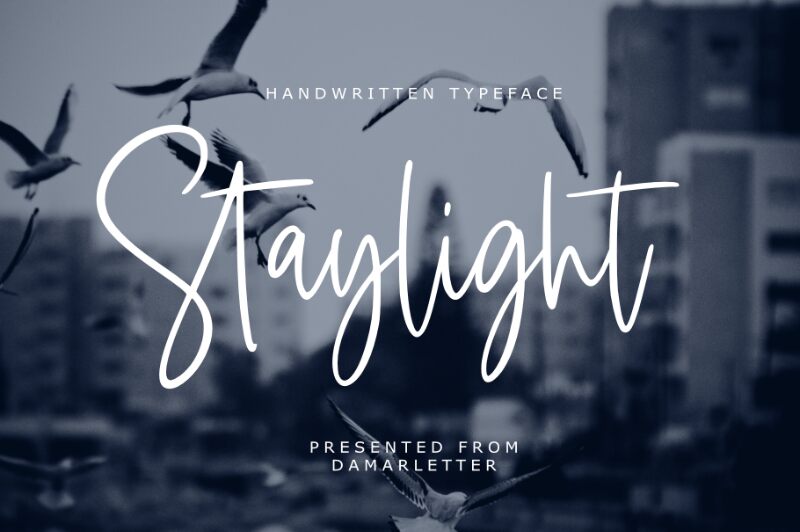
Staylight
Staylight is a captivating handwritten font designed by Damarletter. With its light weight and semi-condensed width, this font adds an elegant touch to any project.
Whether you're creating wedding invitations, fashion magazines, or inspirational quotes for social media, Staylight's flowing strokes and graceful curves will breathe life into your designs. Its versatility makes it perfect for everything from logo designs to blog headers.
Let Staylight illuminate your creative projects with its delicate charm and exceptional legibility.